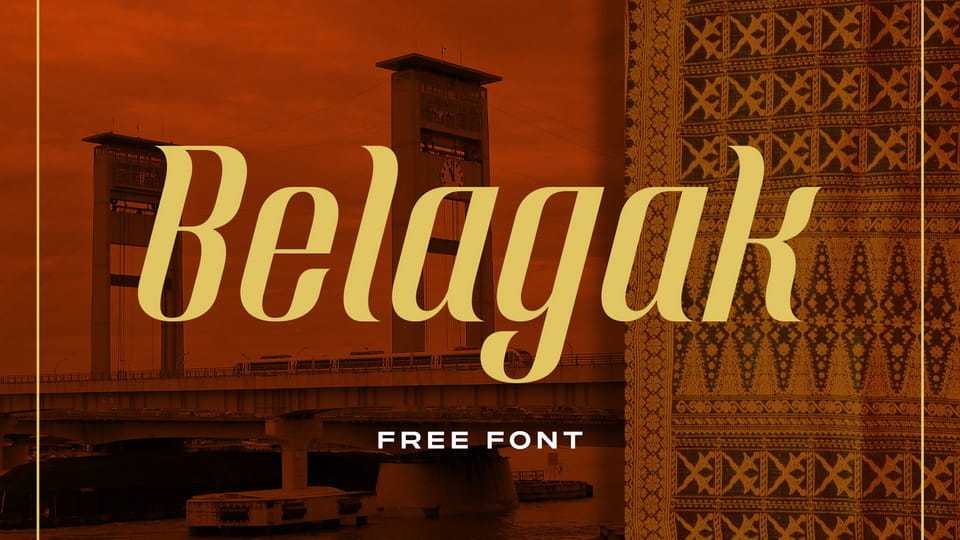
Download Belagak font, a decorative serif typeface inspired by traditional ornamental patterns and cultural heritage. Its flowing curves, sharp terminals, and elegant contrast create a rich and expressive mood.